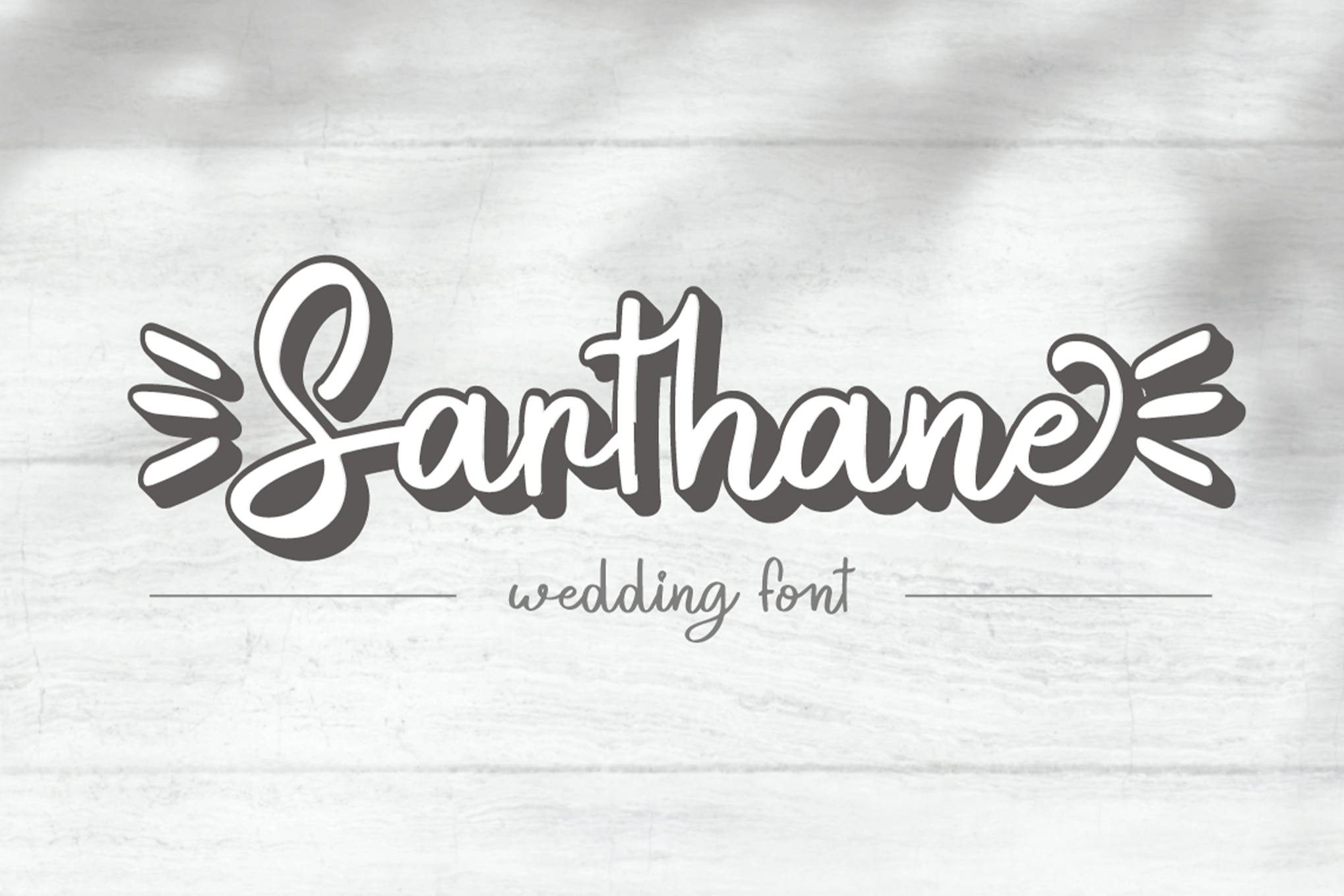
Sarthane - Wedding Font
The Sarthane - Wedding Font excels in sophisticated design applications including refined wedding invitations, elegant bridal branding, sophisticated ceremony logos, upscale product packaging, refined business cards, elegant portfolios, sophisticated greeting cards, refined social media graphics, elegant event signage, and sophisticated marketing materials. Its refined script style makes it perfect for projects requiring sophisticated elegance that communicates refinement and establishes upscale brand positioning with audiences seeking sophisticated wedding experiences and refined sophistication.
What makes the Sarthane - Wedding Font truly exciting is its exceptional ability to capture the sophisticated refinement and elegant grace of upscale weddings through masterfully crafted letterforms. The font features flowing, refined strokes with sophisticated flourishes and elegant proportions that create a distinctly upscale appearance. Each character displays remarkable attention to refined detail with sophisticated curves, elegant connections, and refined spacing that give text a beautifully sophisticated, hand-lettered quality. The font's refined character and sophisticated rhythm create an atmosphere of upscale elegance while maintaining sophisticated refinement and wedding authenticity.
The Sarthane - Wedding Font family typically includes regular weight with extensive character coverage, featuring uppercase and lowercase letters, numerals, punctuation marks, and international characters. The typeface often incorporates stylistic alternates, contextual ligatures, and sophisticated swashes that enhance its signature refinement. These additional elements provide designers with creative flexibility to customize text appearance and achieve more natural-looking sophisticated handwriting that reflects the font's refined and elegant character.
This refined signature font distinguishes itself through its remarkable balance of sophisticated charm and elegant presentation. Unlike basic fonts that lack refined appeal, Sarthane - Wedding Font embraces the power of sophisticated design to create elegant connections with upscale wedding audiences. The font's refined character makes it essential for sophisticated wedding planners, elegant brands, and upscale celebration businesses where creating refined wedding experiences and sophisticated memories is fundamental to success in upscale wedding markets.